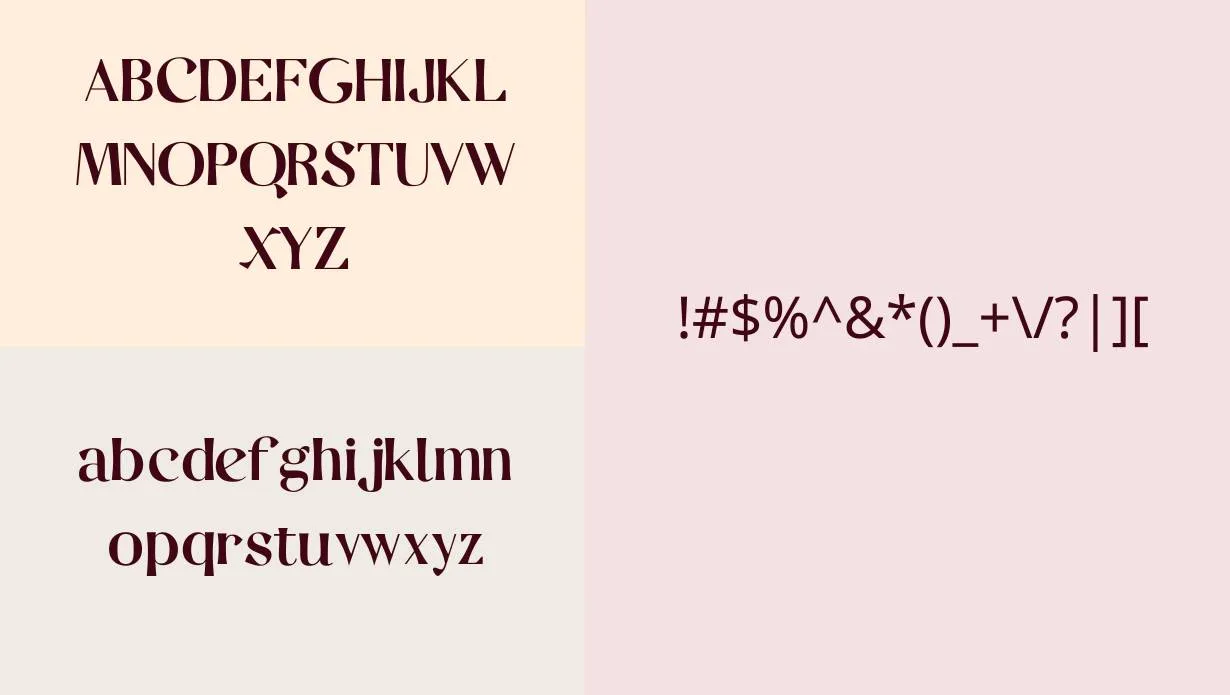
Casual Font is akin to the easygoing companion in the world of fonts. It brings a relaxed and amiable atmosphere to your text. This font is ideal for projects where you aim to communicate a welcoming and relaxed vibe.
Whether it’s for casual invitations, personal notes, or any creative endeavor, Casual Font ensures that your words feel warm and inviting.